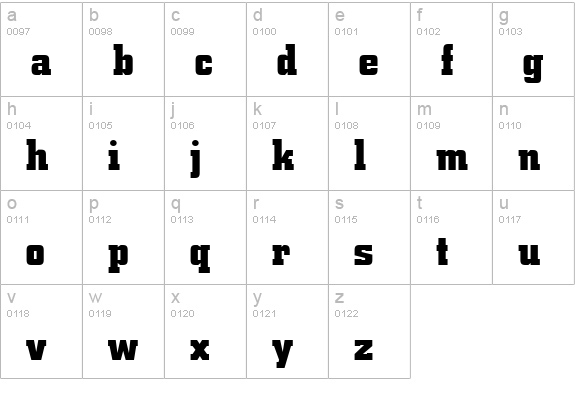
CyprusBold Font Details
CyprusBold font is a bold and impactful typeface that exudes confidence and modernity. With its strong lines and distinctive look, CyprusBold is perfect for making a statement in any design project. This versatile font is ideal for headlines, logos, posters, and more. Best of all, CyprusBold is available for free download at FontsMarket.com, allowing you to easily incorporate this stunning font into your creative endeavors. Make a bold statement with CyprusBold today!